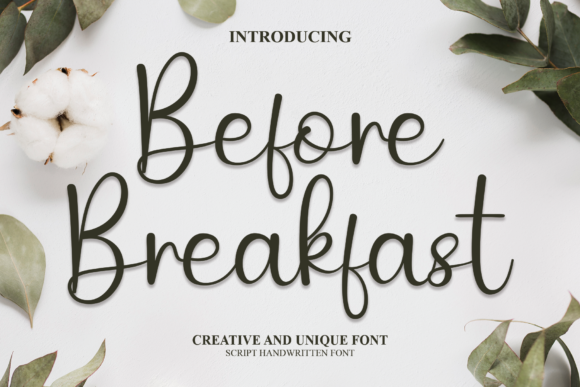
Before Breakfast Font
Introducing Before Breakfast Font, a captivating script font that will transform your designs into mesmerizing works of art. With its elegant curves and effortless flow, this font exudes a timeless charm that will leave a lasting impression on your audience.
Before Breakfast is not just a font; it's an invitation to unleash your creativity. Let your imagination soar as you explore a myriad of possibilities, from enchanting wall hangings to personalized wedding invitations. Elevate your social media presence with eye-catching logos that demand attention. Whether it's advertising campaigns or product packaging, Before Breakfast will add a touch of sophistication and allure to all your endeavors.
This versatile font seamlessly blends with various design aesthetics. Its delicate strokes lend a touch of femininity to product design and labels, while its bold presence commands attention in photography and watermarks. Envision the possibilities as you incorporate Before Breakfast into invitations and stationery, creating a cohesive and unforgettable experience for your recipients.
But Before Breakfast is more than just aesthetics; it's a reflection of your personal style. Whether you're a passionate crafter, an aspiring artist, or a seasoned designer, this font will empower you to express yourself with confidence. Its adaptability knows no bounds, making it the perfect choice for a wide range of projects that demand a touch of understated elegance.
Don't settle for ordinary when you can embrace the extraordinary. Before Breakfast Font is the key to unlocking your creative potential and captivating the hearts of your audience. Its beauty and versatility will transform your designs into masterpieces that will leave an indelible mark.
Step into a world where typography takes center stage and let Before Breakfast Font guide you on a journey of artistic expression. Experience the joy of creating designs that resonate with your soul and leave a lasting legacy of style and sophistication.